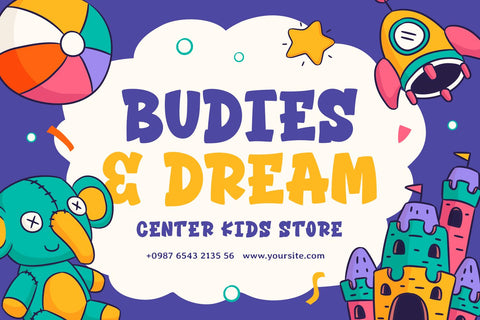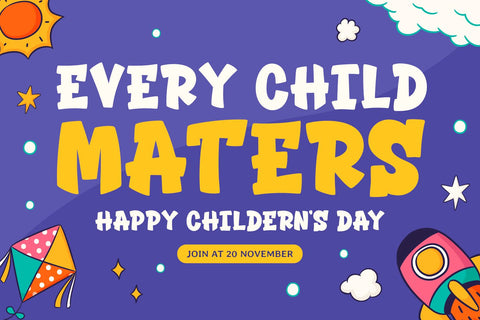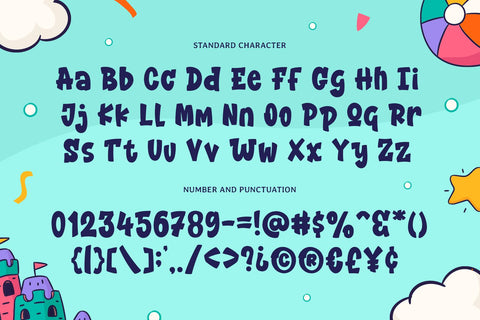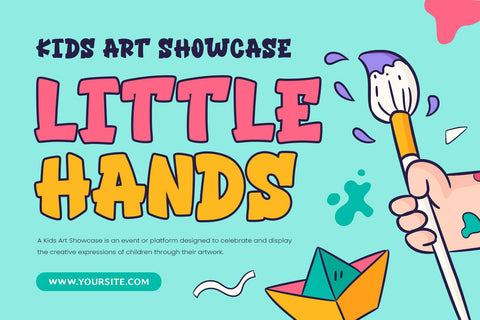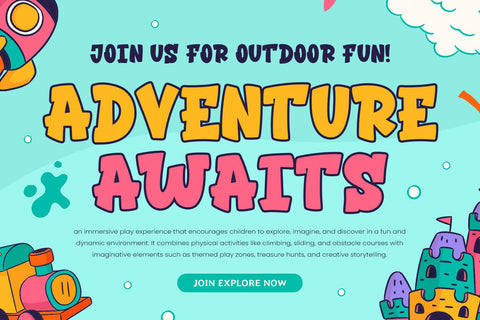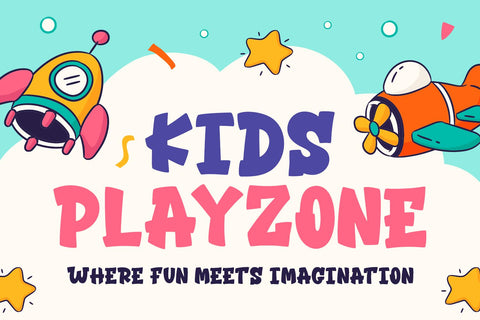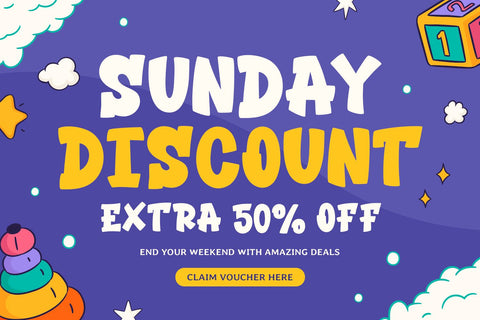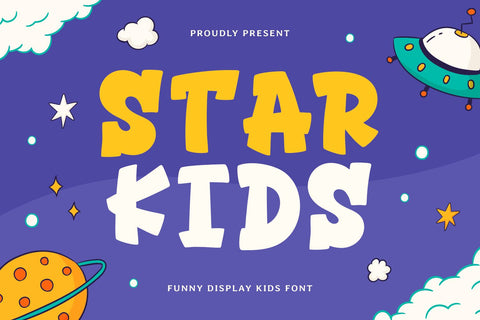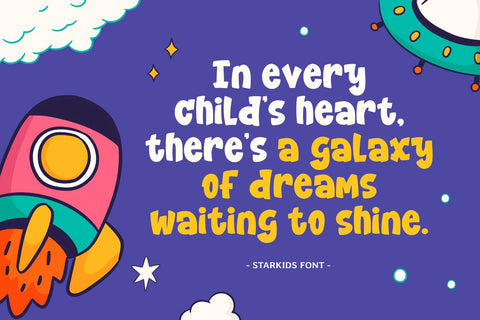
STARKIDS
Starkids is a lively and playful display font designed to spark imagination and creativity. With its bold, dynamic letterforms and whimsical style, Starkids brings an energetic vibe that's perfect for children's themes, from games and toys to playful branding projects. Each character is crafted with a fun and adventurous spirit, making your designs stand out with a cheerful and inviting feel.
This decorative typeface is ideal for projects that need an extra burst of excitement and color. Whether you're creating logos for esports teams, designing vibrant school materials, or developing fun packaging for kids' products, Starkids offers the perfect balance between creativity and readability. Its quirky shapes and playful curves capture the youthful energy that today's brands love to showcase.
With its versatility, Starkids fits effortlessly into a variety of settings — from gaming worlds and toy stores to educational platforms and party invitations. The font’s boldness ensures visibility while its decorative touches add charm and personality to every word you craft. It's a go-to choice for designers looking to inject fun and enthusiasm into their visual storytelling.